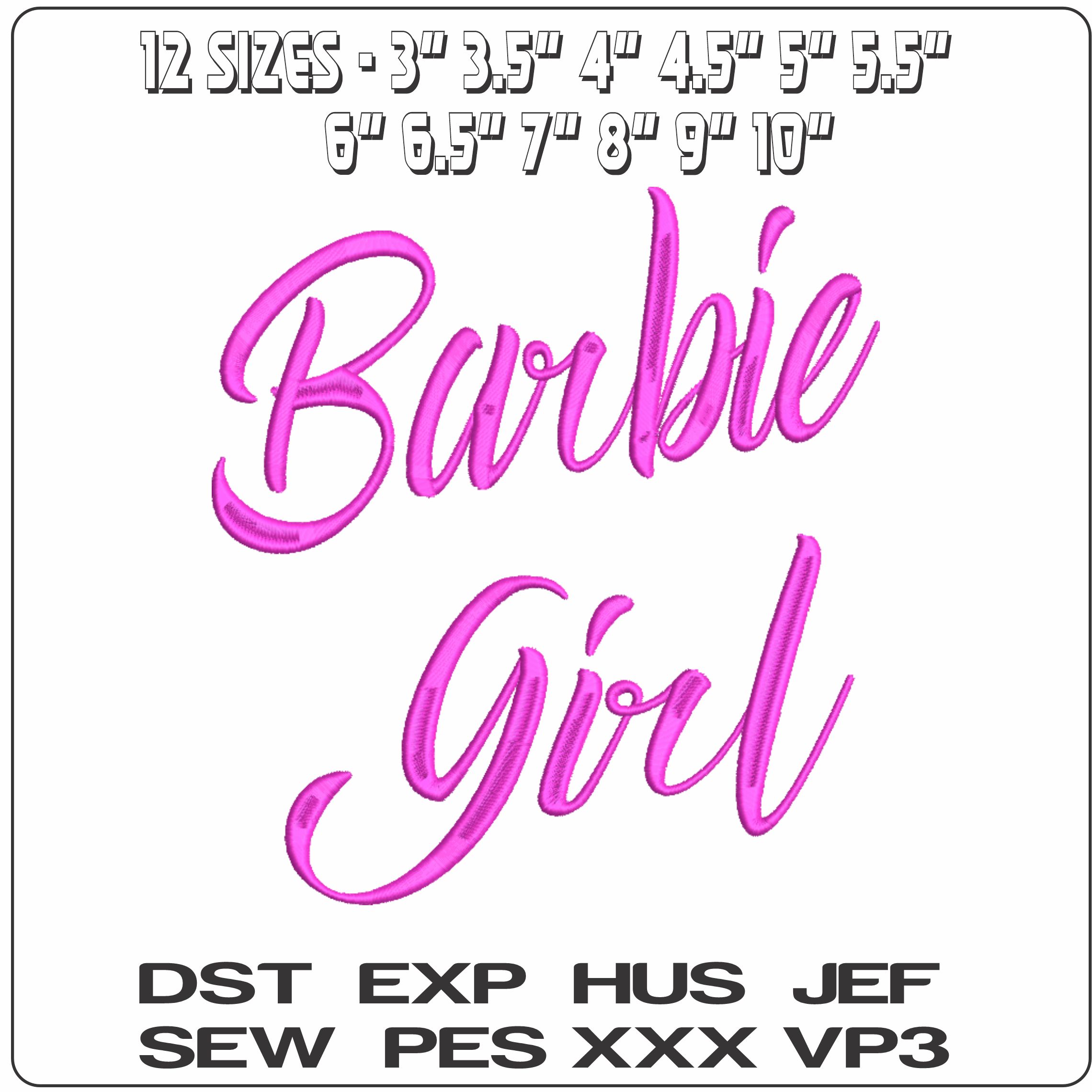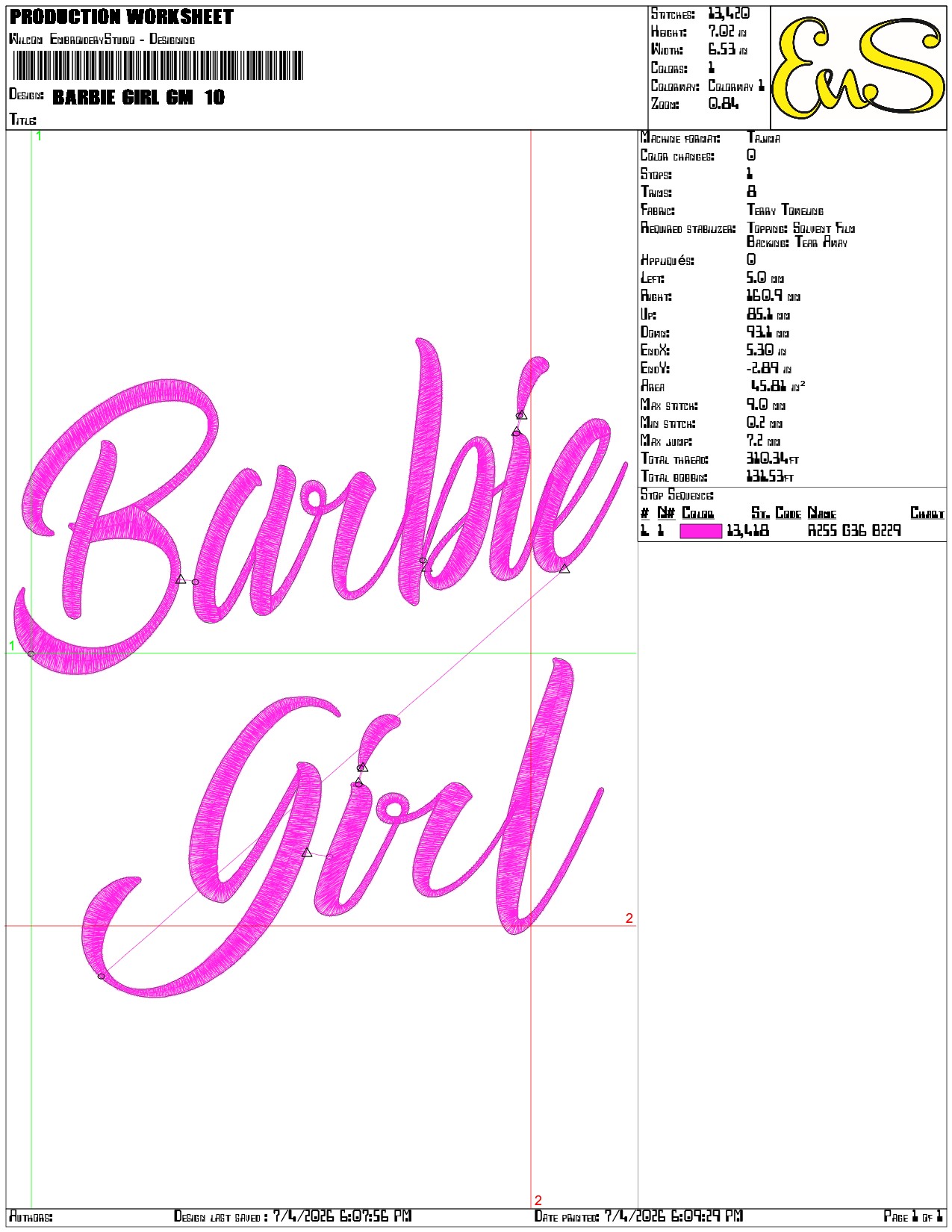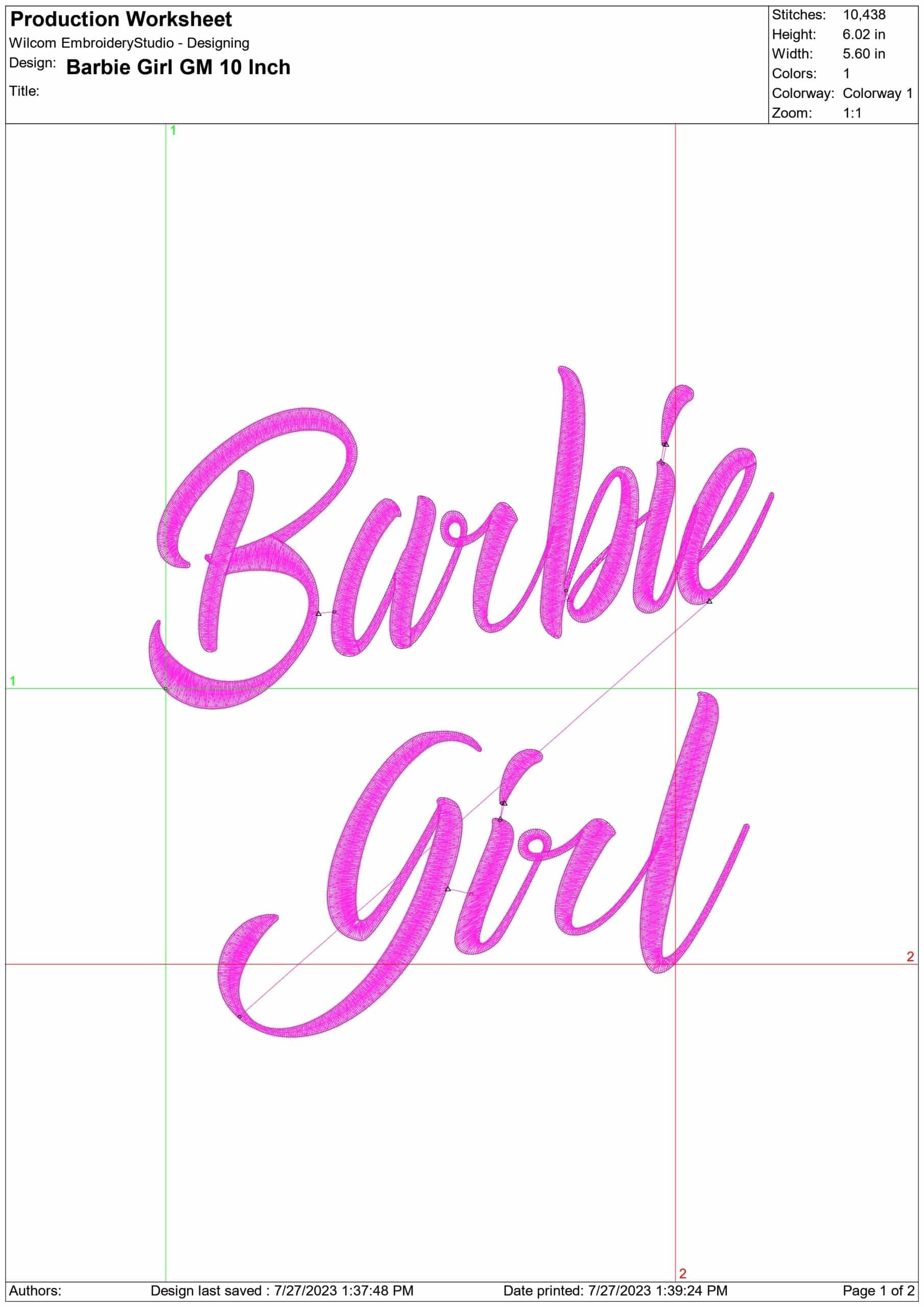
Pink Barbie Girl script adds a clean, playful statement to jackets, tees and accessories without weighing fabric down.
Bring playful pink charm to a project with this Barbie Girl text embroidery design, stitched as a modern two-line script in a bright, unmistakably Barbie shade. It is a strong choice for children’s clothing, girls’ accessories and grown-up Barbie fans who want the look to stay stylish rather than fussy. Because the design uses a single thread colour, the lettering reads cleanly and keeps the focus on the shape of the words.
The open, lightly stitched finish makes it especially suited to T-shirts, sweatshirts, denim jackets, tote bags and cosmetic pouches, where you want impact without a heavy block of stitching. It sits neatly in a frame and scales well from small front placements to larger statement pieces on the back of a garment or the centre of a bag. If you want a text design that feels light, modern and easy to pair with pink wardrobes and gift sewing, this one does that with very little visual clutter.